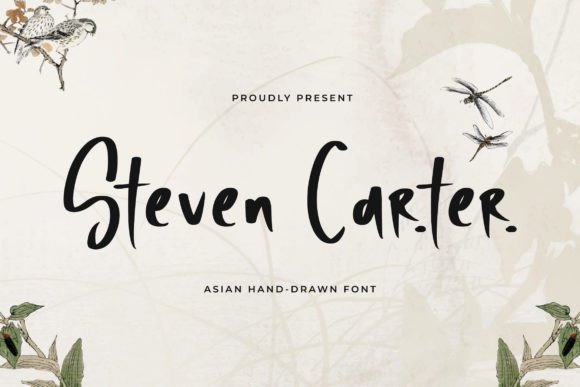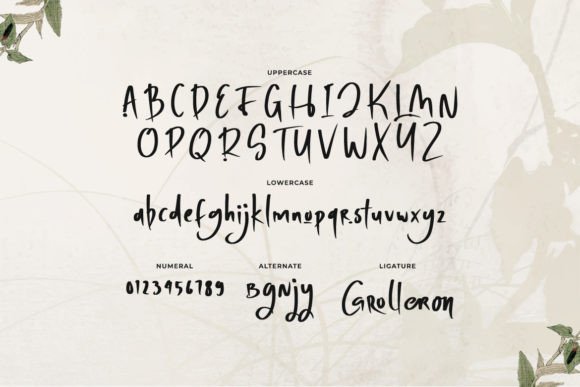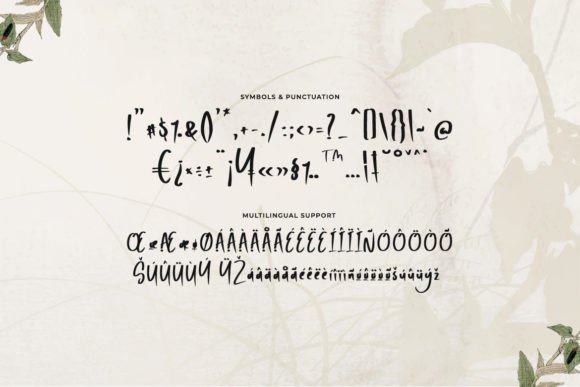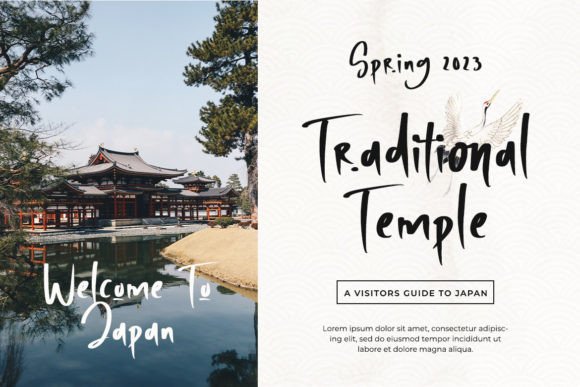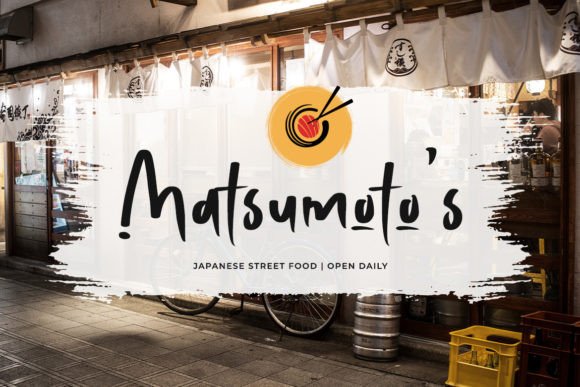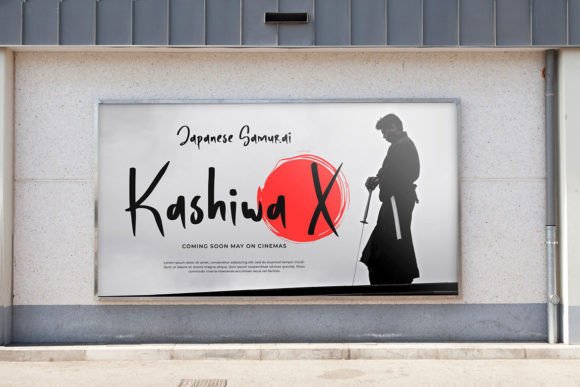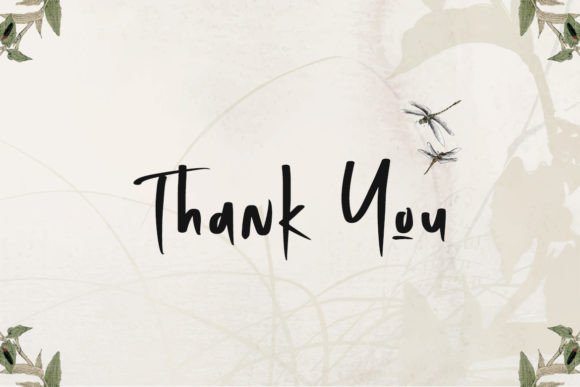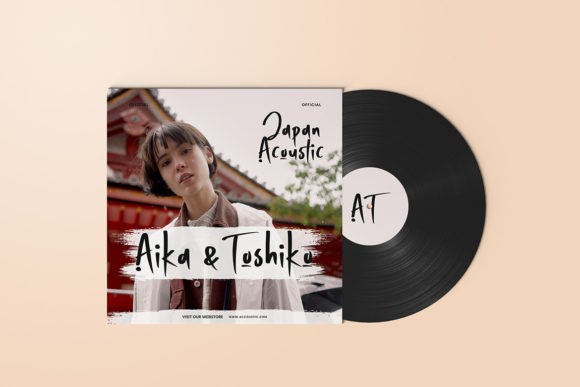
Steven Carter Font
“Steven Carter” is a simple Asian handwritten font that combines great readability with a striking touch. This font is designed to bring a distinct and authentic feel to your designs, making it particularly suitable for applications like food menus, print materials, or restaurant branding.
The simplicity of “Steven Carter” contributes to its readability, ensuring that the content is easily understood while maintaining a unique and handcrafted appearance. Whether used in a food menu, where clarity is crucial, or in print materials for a restaurant brand seeking an authentic touch, this font delivers a balanced and effective visual impact.
The handwritten style of “Steven Carter” adds a personal and human touch to your designs, making it stand out and creating a connection with the audience. It’s a versatile font that can adapt to various design contexts while maintaining its simplicity and readability.
Imagine “Steven Carter” gracing a food menu, enhancing the presentation of dishes with its handwritten charm. In restaurant branding, this font becomes a key element that communicates a genuine and approachable identity. Print materials benefit from its striking yet simple aesthetic, making information easily digestible for the audience.
In conclusion, “Steven Carter” is more than just a font; it’s a design tool that brings simplicity, readability, and a touch of authenticity to your creative projects. Whether you’re working on food menus, print materials, or restaurant branding, let “Steven Carter” be the simple Asian handwritten font that enhances your designs with striking clarity.